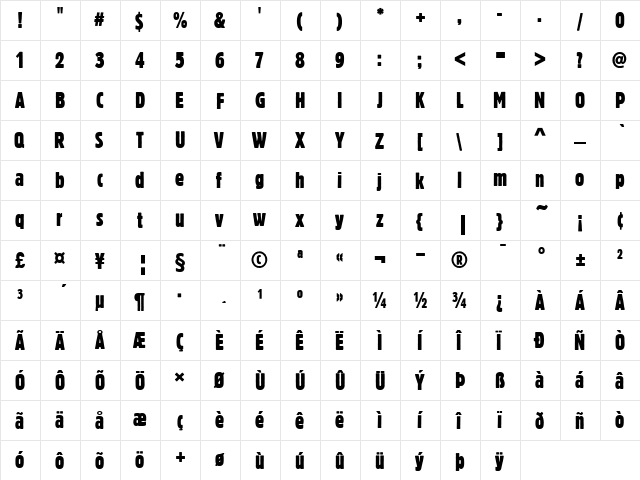
Block D Regular
Design Context for Block D Typeface
Block D offers clean, dependable letterforms without strong stylistic allegiance, making it a practical choice for designers who need flexibility.